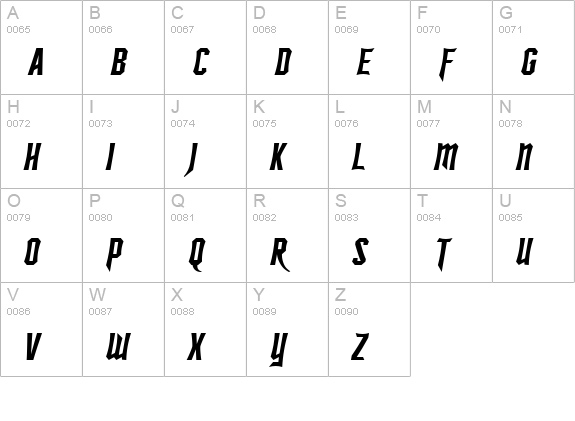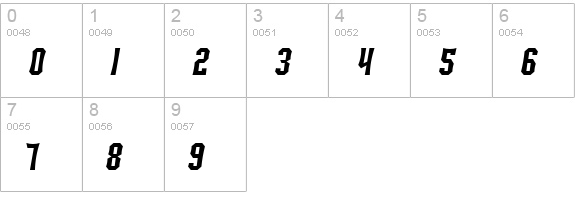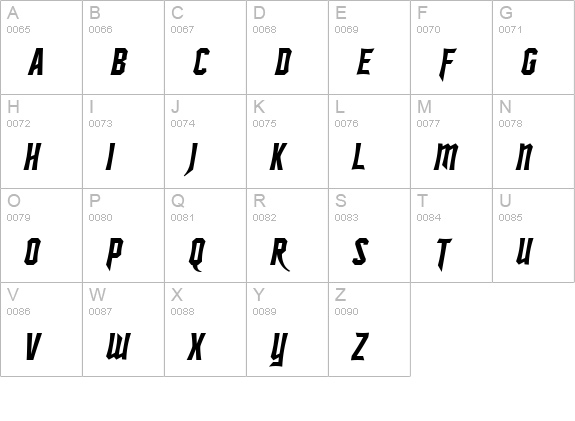
SF Ironsides Italic Font Details
SF Ironsides Italic is a distinctive, italic variant in the SF typeface family \xE2\x80\x94 well suited to design and typography projects.
SF Ironsides Italic is a striking and versatile font that effortlessly combines elegance with a touch of boldness. This font exudes a sense of strength and power, making it perfect for projects that require a strong and impactful presence. Its unique italic style adds a touch of sophistication, giving your designs a dynamic and modern edge. The sleek and fluid curves of SF Ironsides Italic make it a captivating choice for a wide range of design applications. Whether you are working on a logo, branding materials, print designs, or web graphics, this font will elevate your creations to new heights. But what truly sets SF Ironsides Italic apart is that it is free. That's right, this exceptional font can be freely downloaded from FontsMarket.com. You no longer have to worry about breaking the bank to access high-quality fonts. With SF Ironsides Italic, you have the freedom to create stunning designs without any limitations. So go ahead and explore the world of SF Ironsides Italic. Let your creativity flow and watch as your designs come to life with this remarkable font. Download it for free today at FontsMarket.com and unleash the power of SF Ironsides Italic on your next project.